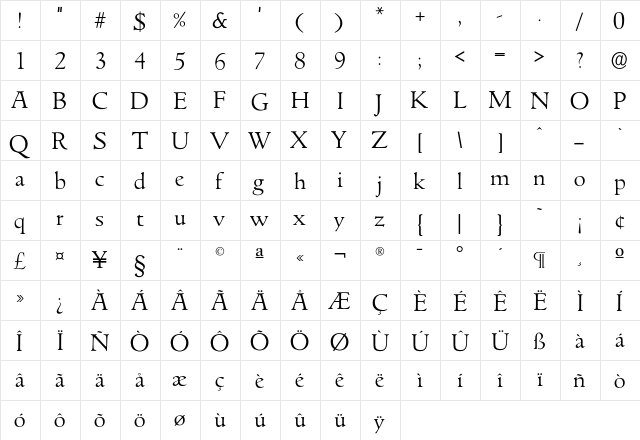
GoudyItalienSOpti Regular
Design Context for GoudyItalienSOpti Typeface
GoudyItalienSOpti takes a measured approach to typography — its balanced proportions and neutral character make it a reliable workhorse for both digital and print work.